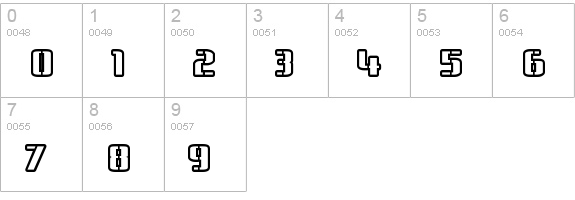
Braeside Outline Font Details
Braeside Outline font is a modern and stylish typeface that exudes sophistication and elegance. With its clean lines and sleek design, this font is perfect for adding a touch of class to any project. The delicate outlines of the letters give a refined and polished look, making it ideal for a wide range of design applications. Best of all, Braeside Outline font is available for free download at FontsMarket.com. Whether you're working on a branding project, creating invitations, or designing a website, this font is sure to elevate your work to the next level. Don't miss out on the opportunity to enhance your designs with the timeless appeal of Braeside Outline font - download it for free today!